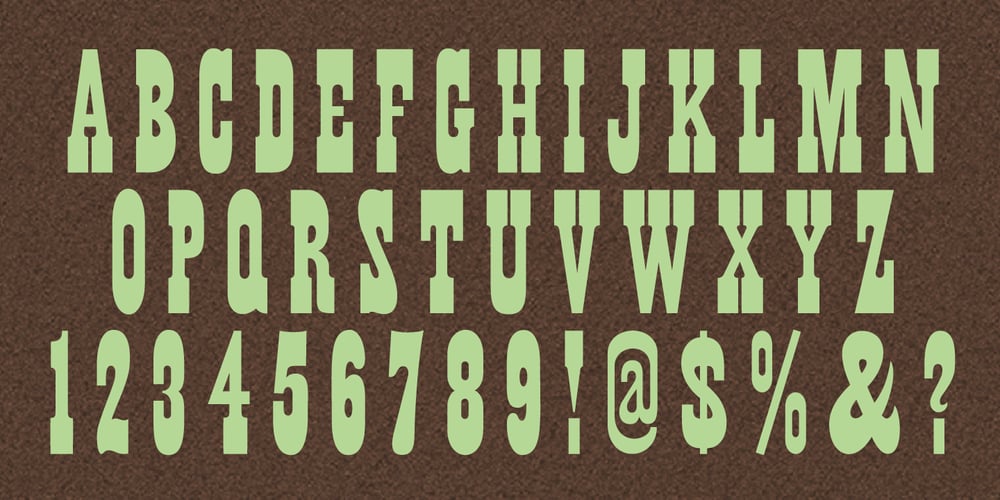
MPI French Clarendon Font Family was designed by William Hamilton Page and published by mpressInteractive. MPI French Clarendon contains 1 styles and family package options. French Clarendon was an extremely popular wood type font. Characters are heavy and condensed with bracketed serifs, which measure approximately 1/4 to 1/3 the height of the letter. Dozens of decorative wood type designs have been created based on French Clarendon. It was marketed as a wood letter by William H. Page & Company in 1865.